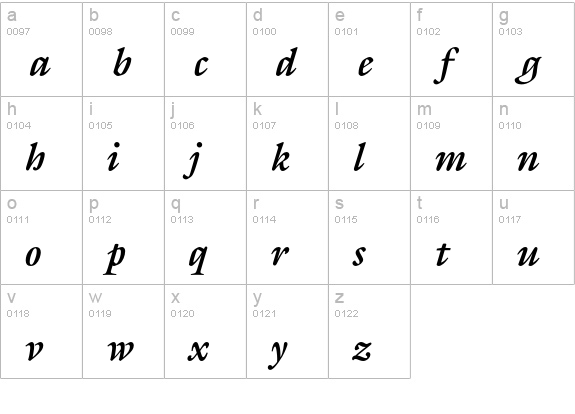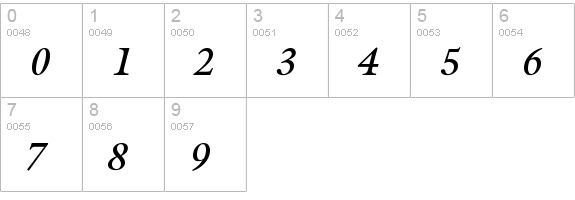
GalliardEF-BoldItalic font is a stunning display of elegance and sophistication. With its bold and italicized form, this font exudes a sense of power and confidence. The smooth curves and intricate details of each letter make it a truly captivating choice for any design project. What makes GalliardEF-BoldItalic font even more remarkable is that it is available for free. Yes, you read that right! This extraordinary font can be freely downloaded at FontsMarket.com. Whether you are a professional designer or someone who enjoys exploring different typefaces, this font is a must-have in your collection. With its unique blend of boldness and italics, GalliardEF-BoldItalic font is perfect for adding a touch of flair to any project. From eye-catching headlines to stylish branding, this font will make your designs stand out from the crowd. Its versatility allows it to be used in a wide range of applications, including advertising, packaging, posters, and more. The attention to detail in GalliardEF-BoldItalic font is truly remarkable. Each letter is meticulously crafted to ensure a seamless and visually appealing result. The elegant strokes and graceful curves give this font a sense of grace and sophistication, making it a favorite among designers worldwide. So why wait? Download GalliardEF-BoldItalic font today and unleash your creativity. With its free availability at FontsMarket.com, there's no reason not to add this exquisite font to your collection. Whether you are designing for print or digital media, this font will effortlessly elevate your projects to new heights. Embrace the beauty and power of GalliardEF-BoldItalic font and let your designs shine.